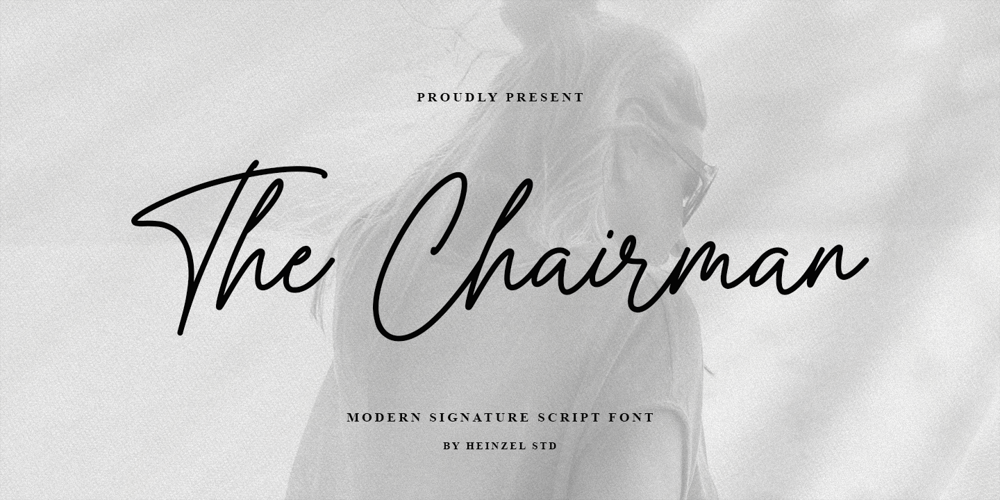
The Chairman Font Family was designed by Nofi Sofyan Hadi and published by Heinzel Std. The Chairman contains 1 styles and family package options. The Chairman is a flowing handwritten font, described by an elegant touch, perfect for your favorite projects. It looks stunning on wedding invitations, thank you cards, quotes, greeting cards, logos, business cards, magazine, marketing materials and every other design which needs a handwritten touch. Fall in love with its incredibly distinct and timeless style and use it to create spectacular designs!The Chairman Features : Uppercase and Lowercase Numerical and Punctuation Ligatures PUA Encoded Multilingual Language Easy To Use